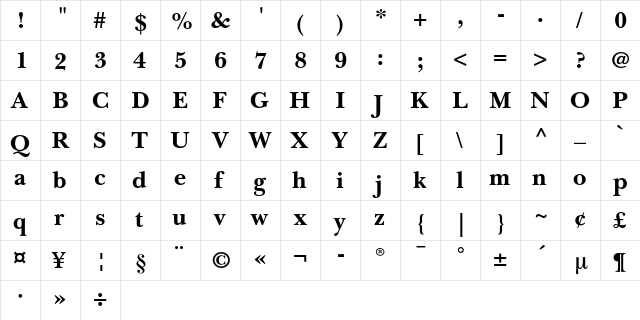
Baskerville Cyrillic Bold
Design Context for Baskerville Typeface
Baskerville takes a measured approach to typography — its balanced proportions and neutral character make it a reliable workhorse for both digital and print work. The heavy weight commands attention and anchors typographic hierarchies.